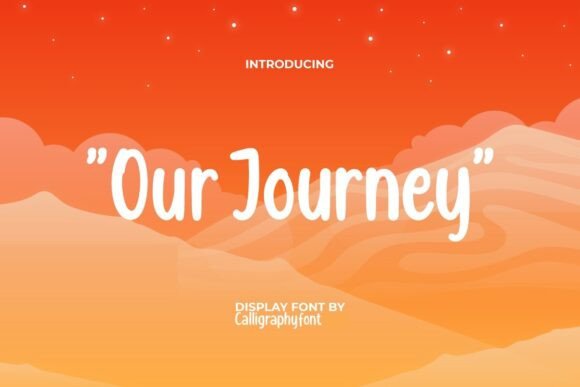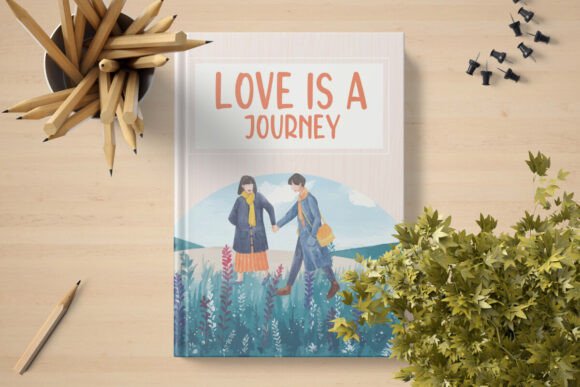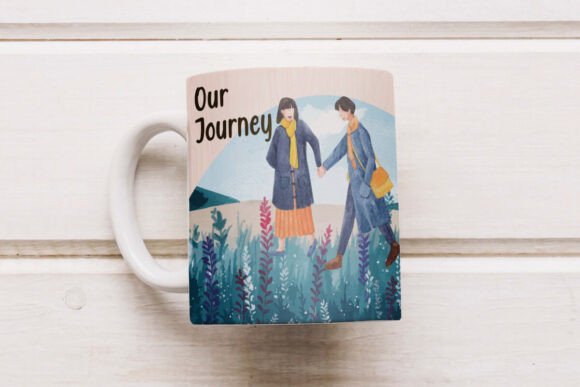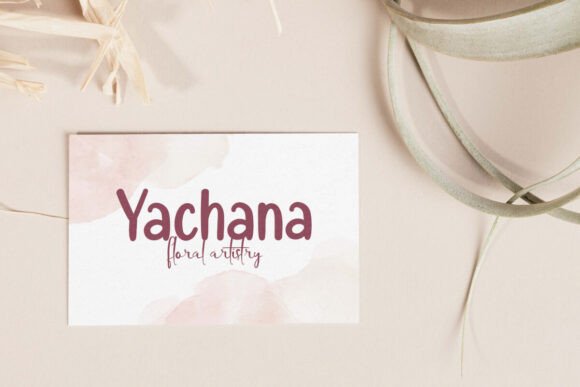
Our Journey Font: A Cute Handwritten Display Font for Craft & DIY Projects
About the Our Journey Font
The Our Journey Font offers a perfect balance of form and function for your design needs. Our Journey Font is a beautiful and friendly display font that brings a handcrafted touch and will brighten up any of your designs, such as blogs, brand identity, brochure, business cards, cover, flyer, greeting cards, header, invitation, logos, text on mug design, quotes, screen print, title, website, or anything that requires a happiness look!
Our Journey Font is pleased to present gentle typography based on amazing handwriting. It’s perfect for completing projects no matter the industry, such as accessories and merchandise, architecture, author, cafe, event organizer, fashion, florist, furniture, graphic design, handicraft, interior design, movie, printing, publishing, retail, and more.
Our Journey Font Usage Examples
Our Journey Font Example